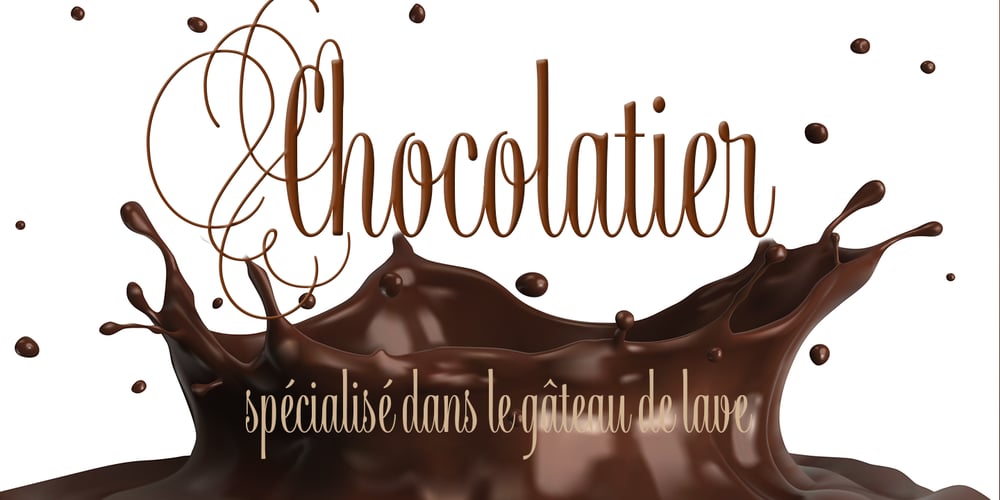
Athellia Script Font Family was designed by Nils Lindstrom and published by Lindstrom Design. Athellia Script contains 1 styles and family package options. An upright condensed formal script. Athellia is right at home on packaging, labels, Menus, Headlines, invitations, and title design. NOTE: MyFonts does not display contextual alternates so many of the ‘o’ combinations do not display correctly here but do with open type alternates activated.